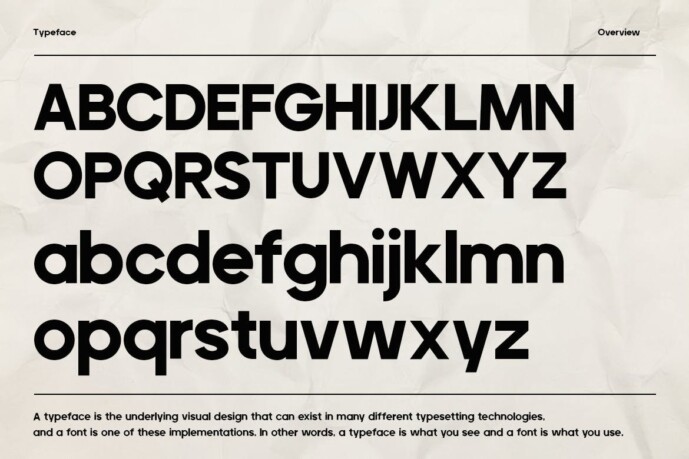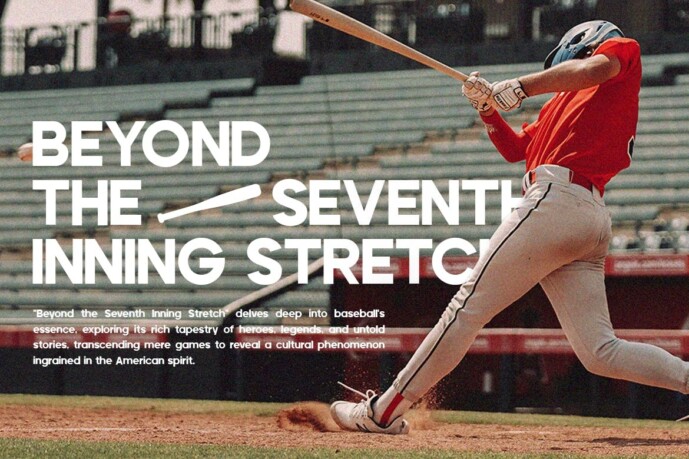
Mofugu Font
Mofugu Font, a bold statement with our latest sans-serif font. With its clean lines and modern appeal, this font is sure to turn heads and leave a lasting impression. Perfect for headlines, logos, and any design that demands attention. It is both functional and stylish, making it a versatile choice for a wide range of design projects.